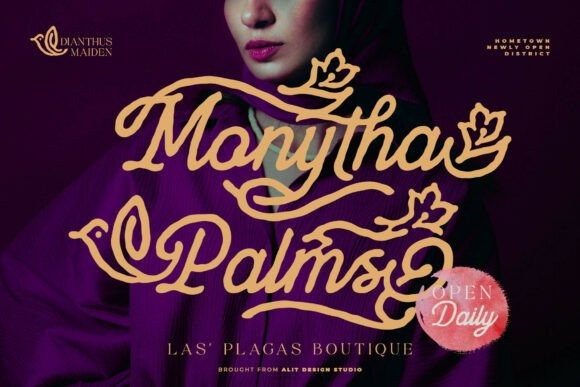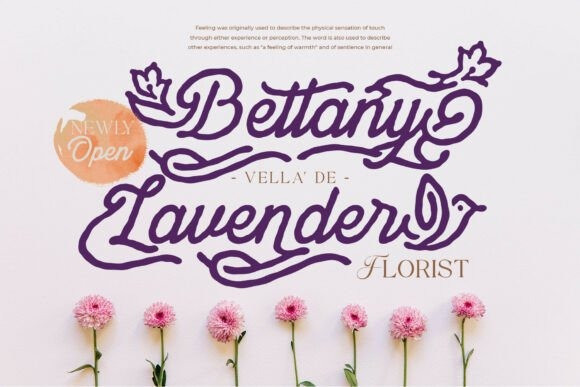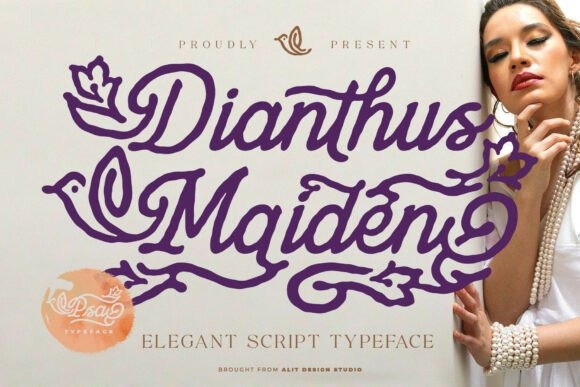
Dianthus Maiden Font
Dianthus Maiden Font a breathtakingly elegant and luxurious script font designed to bring a touch of graceful romance to your creative projects. Masterfully crafted to capture the essence of fluid, hand-drawn calligraphy, this typeface blends classic sophistication with modern botanical beauty.
Whether you are designing a high-end fashion editorial, a boutique florist logo, luxurious wedding invitations, or striking cosmetic packaging, Dianthus Maiden provides the perfect decorative flair to make your typography feel custom-made and effortlessly beautiful.